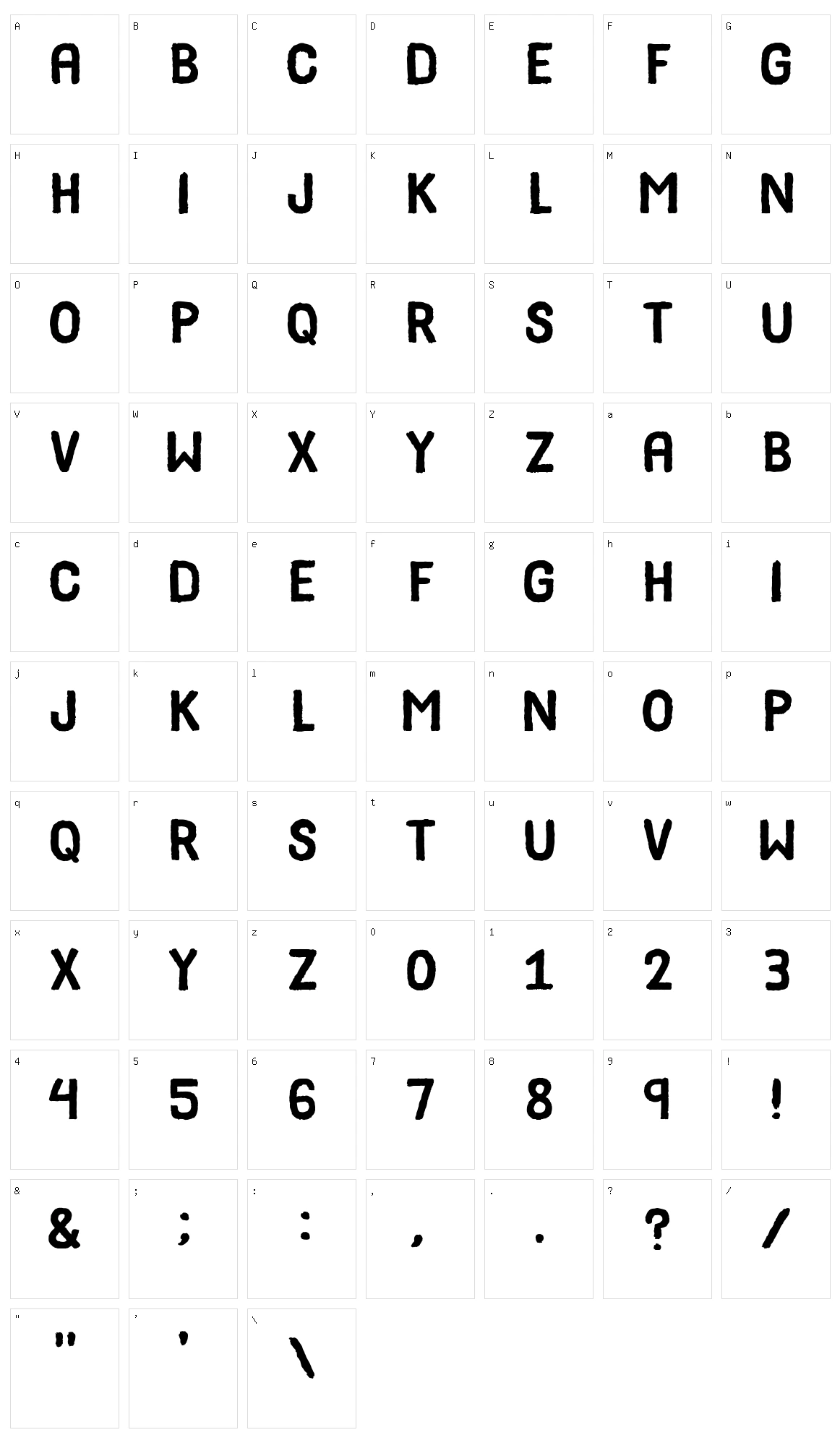
The free font Listen Learn Rethink is carefully designed by Frances Ludlam, showcasing a thoughtful balance of creativity and usability and falls under the Eroded font style. When you download the ZIP file, it contains only 50.82 KB of font files, making it lightweight and quick to download. Please review the license details below to understand permitted usage and distribution rights. If license information is not available, we recommend using this font for personal projects only or contacting the author directly for commercial usage permissions.